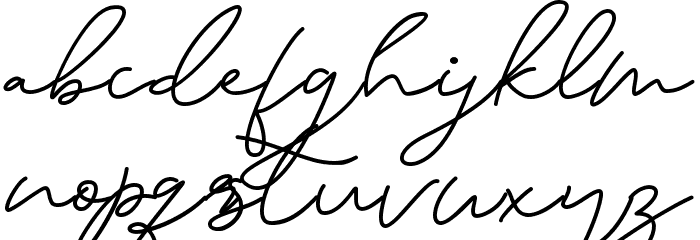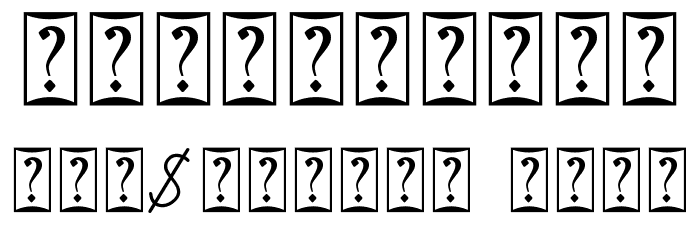
Eiffel in love Font
This font exudes elegance and sophistication with its flowing, cursive script style. The letters are interconnected, creating a seamless and fluid appearance that mimics natural handwriting. The uppercase letters are slightly more ornate, with graceful loops and curves, while the lowercase letters maintain a consistent rhythm and balance. The font's thin strokes and delicate lines give it a light and airy feel, making it ideal for projects that require a touch of refinement and class. The special characters, although not clearly visible, suggest a continuation of the elegant theme, likely incorporating similar stylistic elements.
An elegant, cursive script font with flowing, interconnected letters.
- Font: Eiffel in love
- Proposed Projects: Ideal for wedding invitations, elegant branding, personal stationery, and romantic-themed designs.
- Category: Script
- Weight: Light
- Overall Style: Elegant
- Use Case: Logos, Invitations, Personal stationery